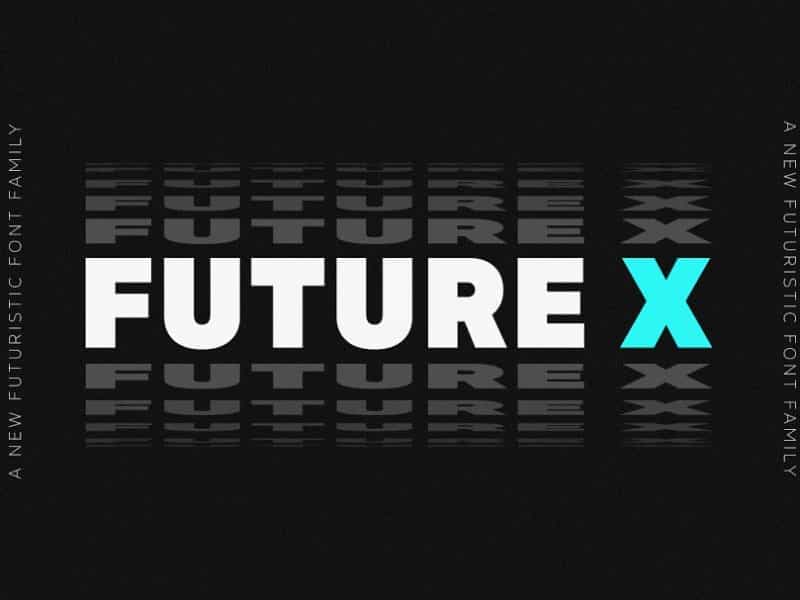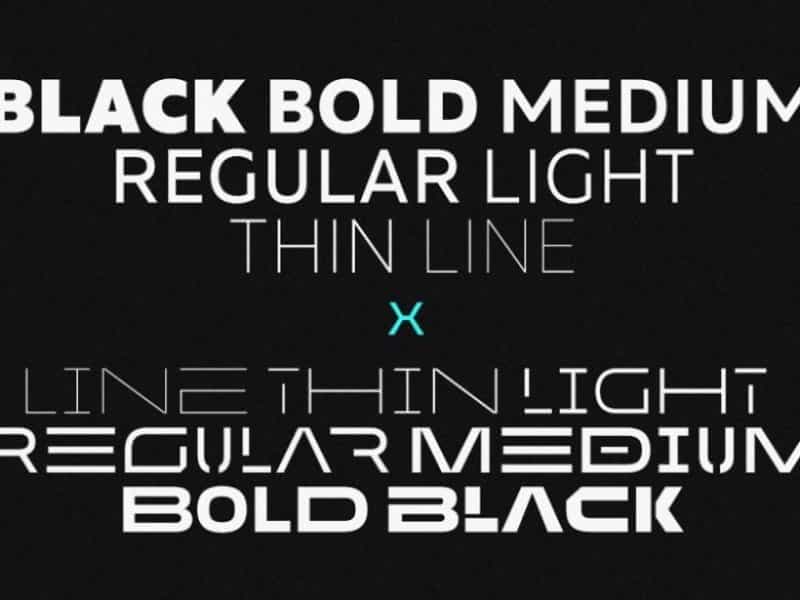
Future X MADE is a contemporary font family comprising of 14 fonts. The Future X comes basically trendy and futuristic, combinable. The Future X will be perfect for many project: logo, branding, magazines, quotes, header, blog header, poster, advertisements, and others. The Future X HEADER is outstanding for headlines, blog headers, posters, newspapers, logo, book design, music posters, and so on.